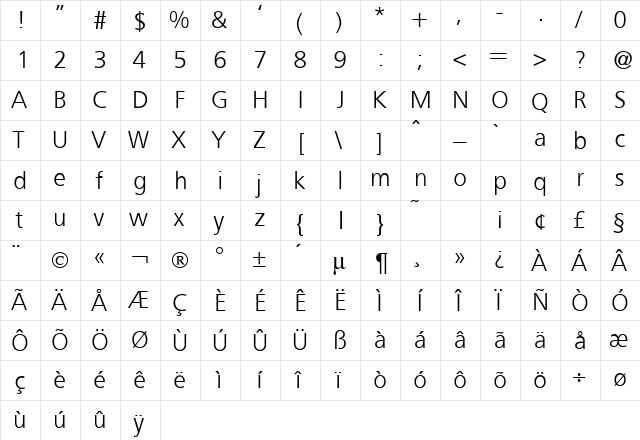
FruchtigLightDB Normal
Design Context for FruchtigLightDB Typeface
FruchtigLightDB is a composed and adaptable typeface that performs quietly and consistently across a wide range of design contexts. The delicate stroke weight brings airiness and refinement to layouts.